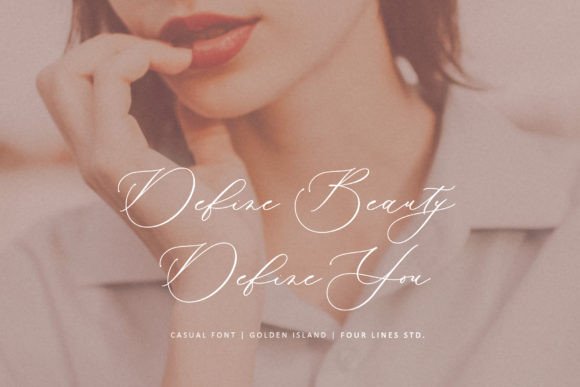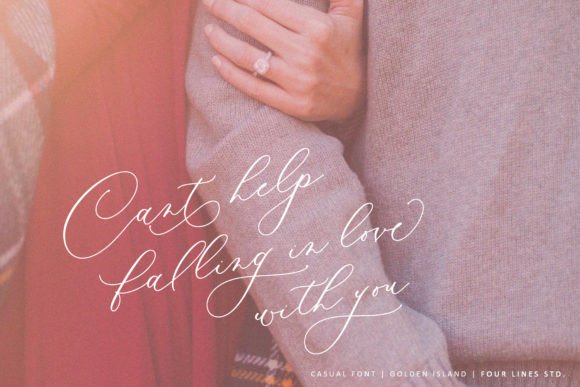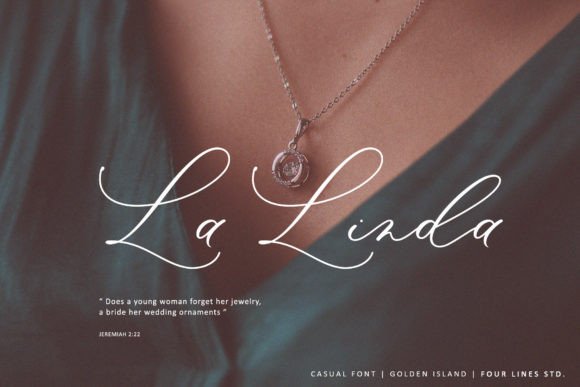
Introduction to Golden Island Font
Golden Island is a delicate, elegant, and flowing script font.
It has beautiful and well-balanced characters, and as a result, it matches a wide pool of designs Add it to your most creative ideas and notice how it makes them come alive.
Key Features of Golden Island Font
Why Choose Golden Island Font?
Golden Island Font offers exceptional quality and versatility, making it a valuable addition to your design toolkit. Whether you’re creating for personal projects or commercial use, Golden Island Font delivers professional results.